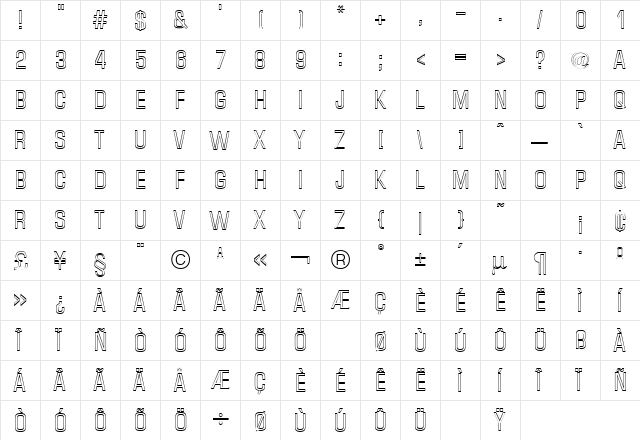
Micro Technic Condensed Outline Regular Font Preview
Design Context for Micro Technic Condensed Outline Typeface
Micro Technic Condensed Outline has a distinctly futuristic character, with geometric precision and clean angles that feel at home in technology, gaming, and sci-fi contexts. The condensed width makes it efficient for tight spaces without sacrificing legibility.